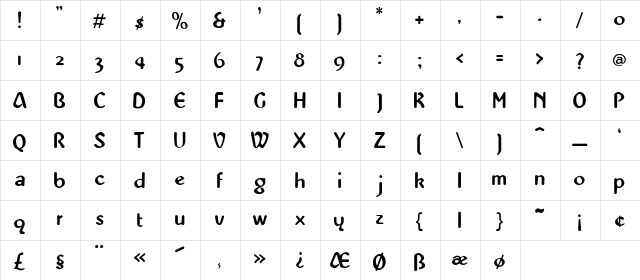
Abbey-Medium Regular Font Preview
Abbey-Medium Regular
Design Context for Abbey-Medium Typeface
Abbey-Medium is a composed and adaptable typeface that performs quietly and consistently across a wide range of design contexts.